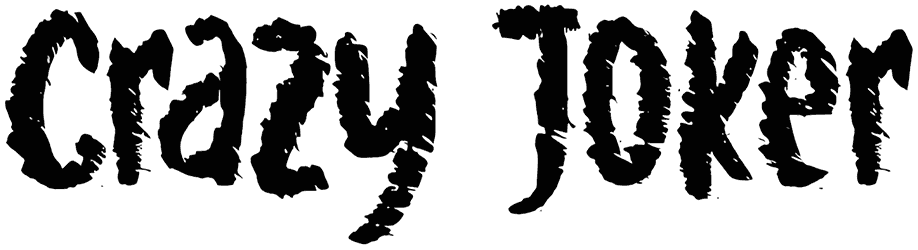
Bates Shower Font
It grabs hold of your senses and scares you out of your pants. Unsettling and violent brushstrokes have made it extremely intimidating. Bates Shower has a grunge style of lettering that would land well as the title of a horror movie poster or a YouTube thumbnail with horror elements.
Designed by: imagex